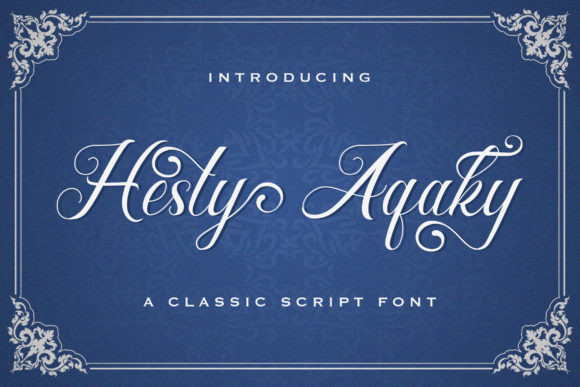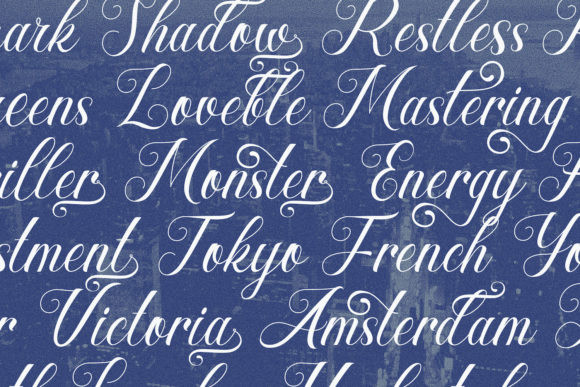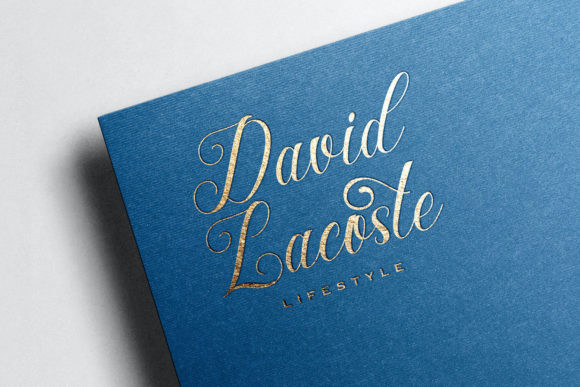
Hesty Aqaky Font
Hesty Aqaky FontHesty Aqaky is a sweet and cursive script font. It looks ravishing on every design which needs a personalized touch.